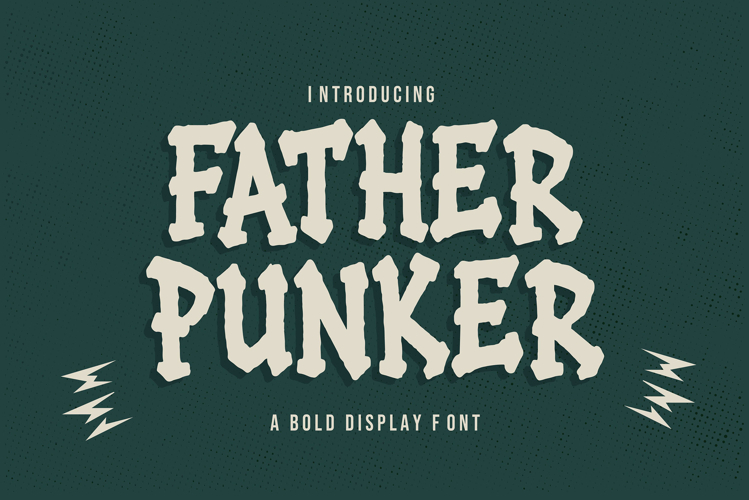
Father Punker | Bold Punk Display Font
Introducing Father Punker, a bold punk-inspired display font designed with rebellious energy, rough vintage attitude, and powerful handcrafted character. Inspired by underground punk culture, retro gig posters, garage band aesthetics, tattoo art, and distressed street typography, Father Punker delivers strong visual impact with raw expressive personality.
Featuring rugged edges, chunky bold forms, and handcrafted imperfections, Father Punker creates typography that feels loud, energetic, and unapologetically bold. The font combines vintage punk attitude with modern display readability, making it perfect for standout headlines and rebellious branding compositions.
Father Punker is suitable for projects that require strong alternative visual identity and gritty artistic atmosphere. Whether used for music posters, album artwork, streetwear branding, skate visuals, merchandise, gaming graphics, editorial layouts, or underground event promotions, this font instantly creates bold visual presence.
The rough handcrafted structure gives the typeface authentic punk aesthetics inspired by classic underground flyers, DIY zines, retro concert posters, and rebellious creative culture. Every character was carefully crafted to maintain expressive personality while still remaining readable and versatile for modern design projects.
- Bold Punk Style
- Rough Handcrafted Letterforms
- Vintage Alternative Aesthetic
- Strong Display Typography
- Retro Underground Character
- Distressed Visual Personality
Father Punker works perfectly for:
- Punk Posters
- Music Branding
- Album Covers
- Skate Graphics
- Streetwear Designs
- Band Merchandise
- Tattoo Visuals
- Gaming Graphics
- Alternative Branding
- Vintage Editorials
- Event Flyers
- Underground Promotions
- Social Media Graphics
- Creative Packaging
- Bold Headlines
The chunky distressed forms create typography with strong visual rhythm and energetic movement. The imperfect handcrafted texture helps compositions feel raw, authentic, and expressive while maintaining excellent readability for display usage.
Father Punker performs beautifully in oversized titles, grunge layouts, retro branding systems, underground music visuals, and alternative fashion campaigns. Its bold silhouette helps typography stand out instantly in both digital and print environments.
The multilingual support expands creative flexibility across multiple languages, while punctuation and number characters complete professional typography systems for branding and promotional materials.
Inspired by punk rock culture, rebellious street aesthetics, underground poster art, and retro handcrafted typography, Father Punker transforms ordinary text into expressive visual statements with strong attitude and vintage energy.
Suitable for creators looking for bold typography with raw personality, gritty style, and alternative display aesthetics.